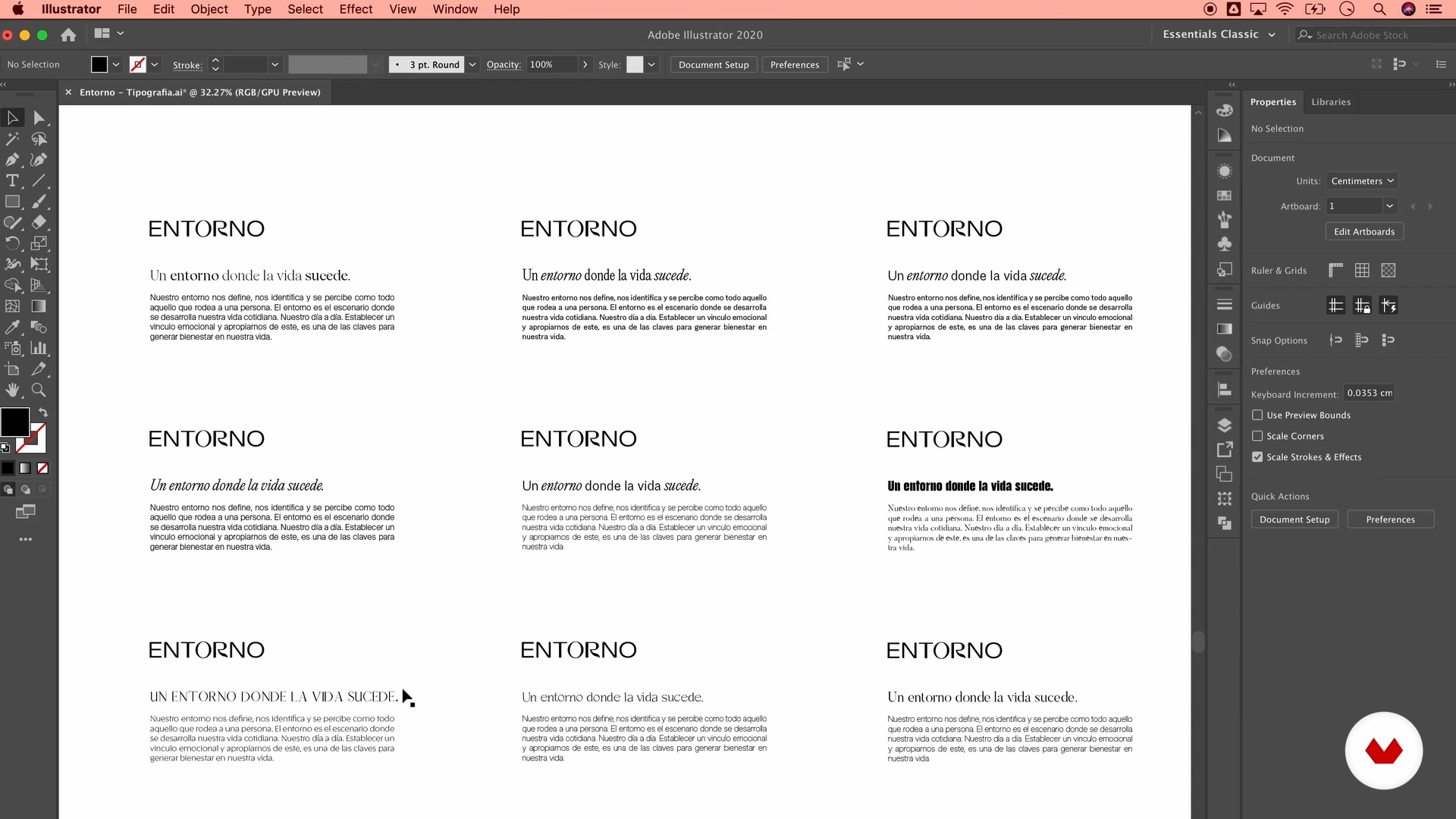
Choosing the Font
About the video: Choosing the Font
“Do you dare to let your creativity fly? In this lesson, you will learn how to create visual interest through typefaces (combinations and placement) and how to choose them correctly. ”
In this video lesson Open Studio addresses the topic: Choosing the Font, which is part of the Domestika online course: Minimalist Branding and Stationery Design. Learn how to create the visual identity of a retail brand and a corporate brand, designing stationery with a minimalist style.
“Choose the font In this lesson we will see the choice of fonts. One of the stages we enjoyed the most in the studio is to investigate and test new fonts, create compositions that inspire and communicate the brand message. Make it readable and generate visual interest it is essential for us. Let's see. If we talk about a minimalist brand Typography is one of the elements of the highest hierarchy within it. From the typography we project the aesthetic tone of the brand, if it will be a playful, soft, urban or elegant brand, for example. Weights can also be defined through typography. How many...”